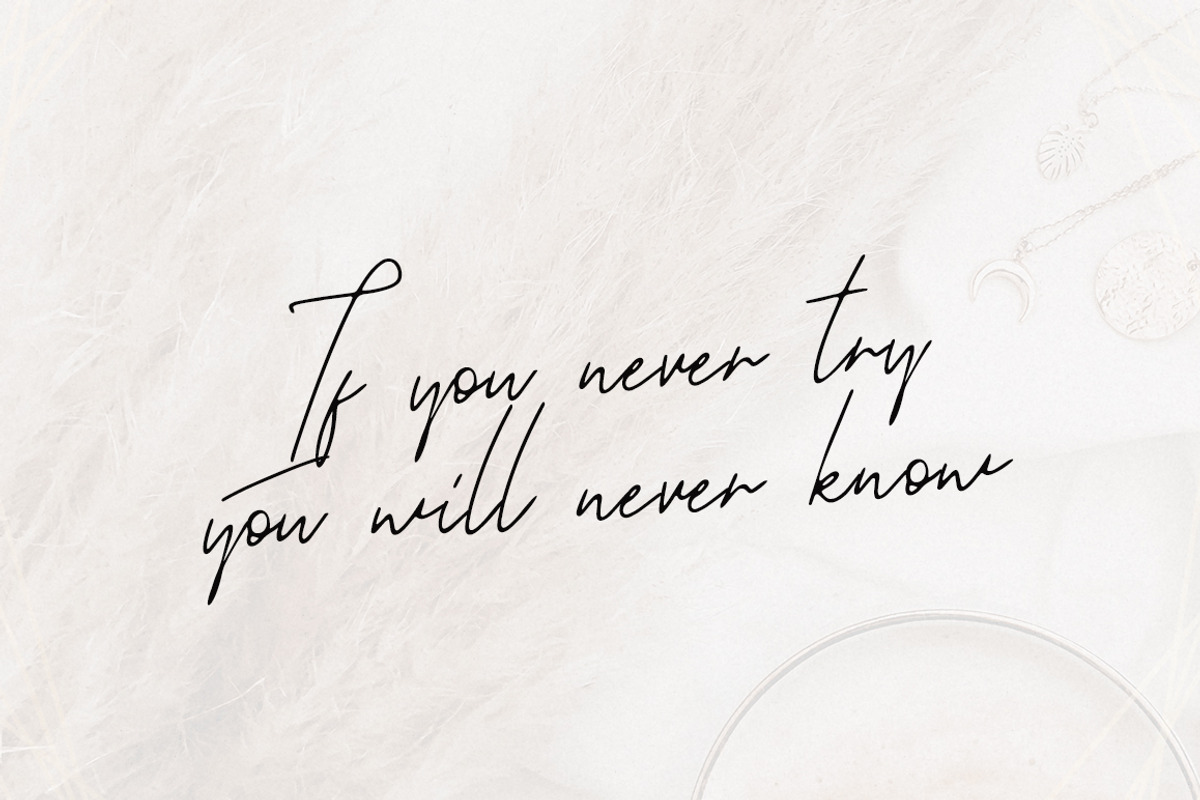
Jar Binks Latin & Cyrillic
JAR BINKS
This handwritten script has been attentively written, with gentle curves to produce a font thats completely distinctive and original. Perfect for adding a elegant and unique touch to your lettering projects and branding Also with their help, you can create a Wedding lettering or beautiful frame for your home. Or just use for your small business, book covers, stationery, marketing, magazines and more.
CYRILLIC SUPPORT
Standard glyphs, numbers, punctuation.